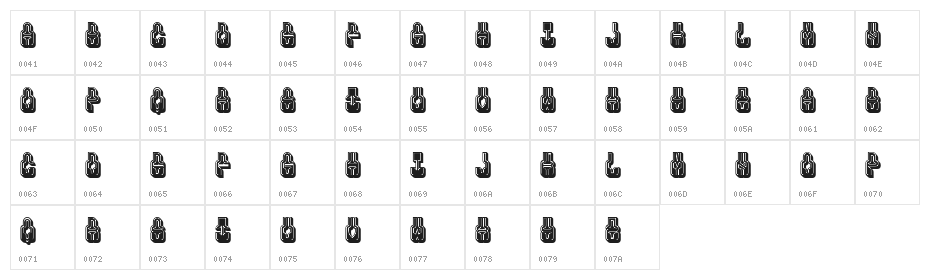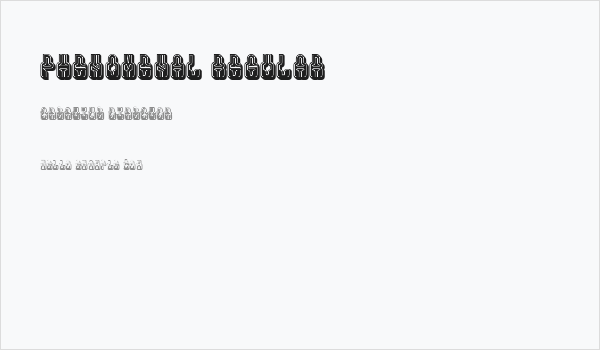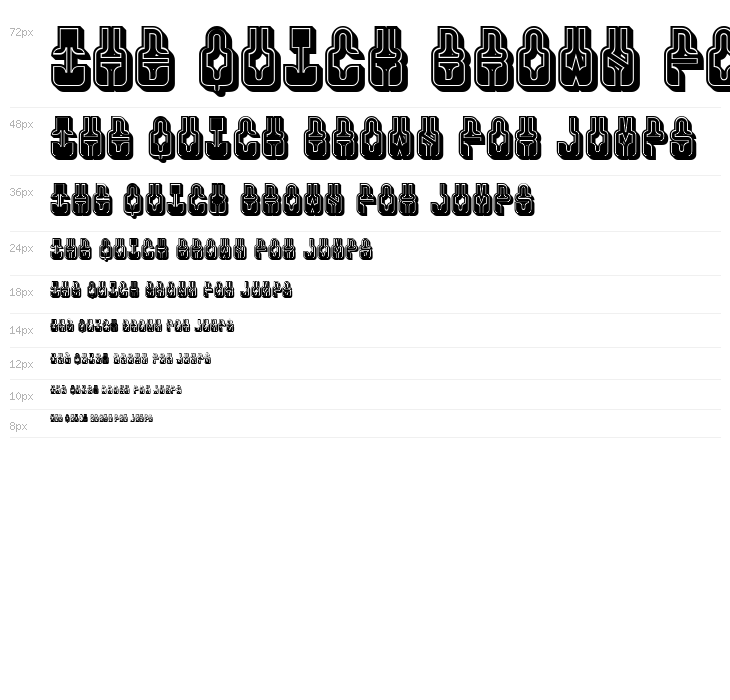
Phenomenal Regular Font
Phenomenal Regular Description
This font features a bold, geometric design with a distinctive outline style that creates a striking visual impact. Each character is crafted with a thick, uniform stroke that forms a unique, almost puzzle-like appearance. The letters are highly stylized, with sharp angles and a futuristic feel, making them stand out in any design. The font maintains a consistent weight throughout, ensuring readability while adding a decorative touch. Its boldness and intricate design make it ideal for projects that require a strong visual presence.
| Proposed Projects | Ideal for posters, album covers, video game graphics, and branding that requires a bold, modern look. |